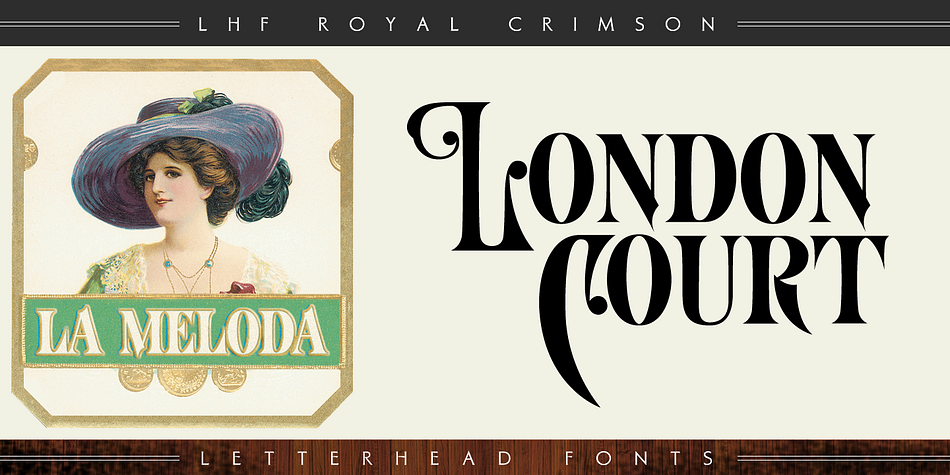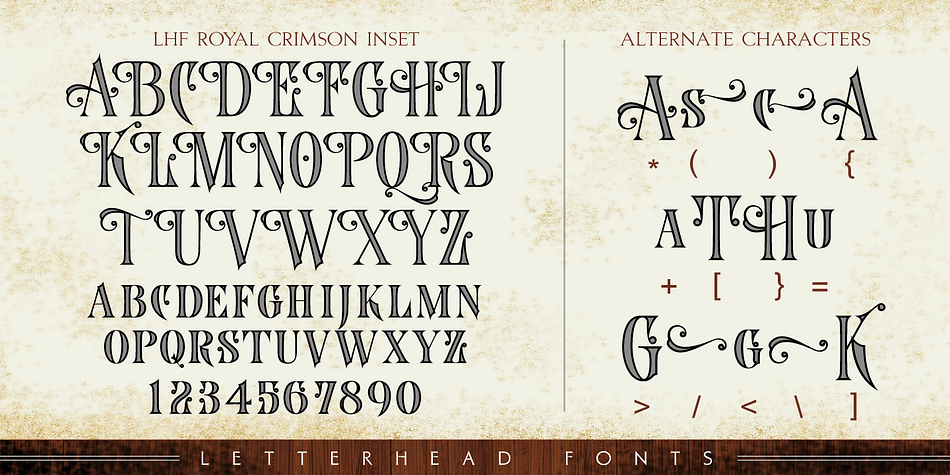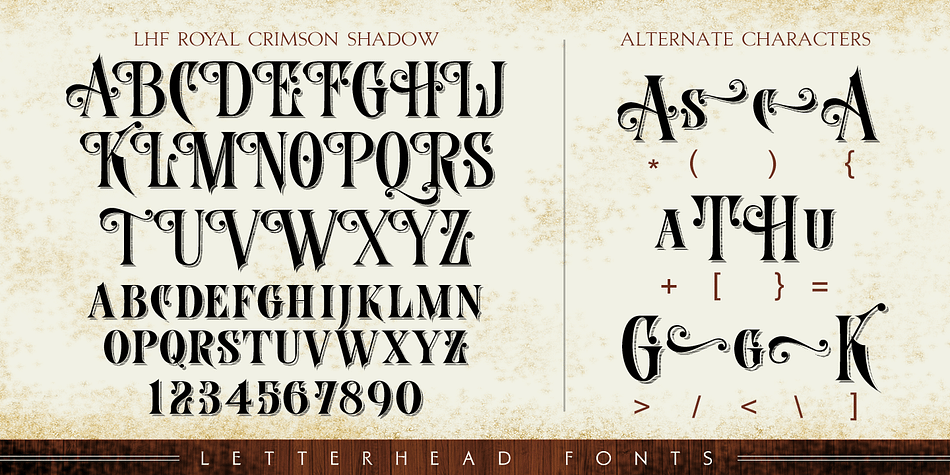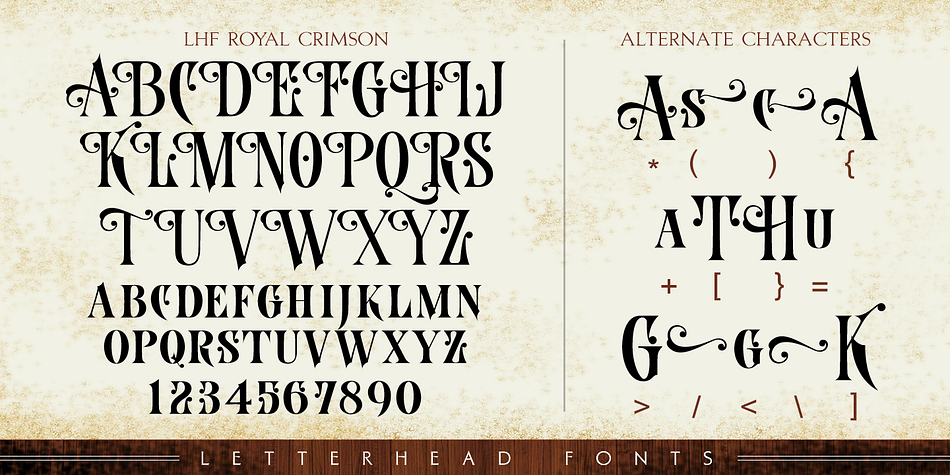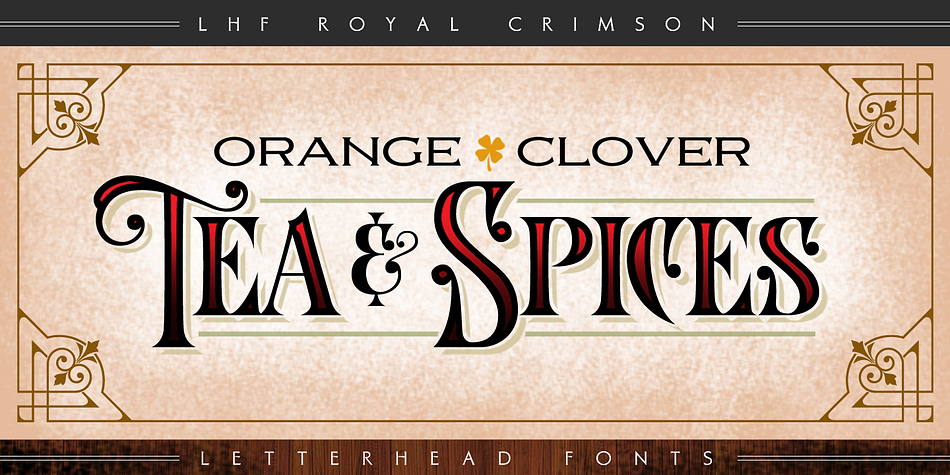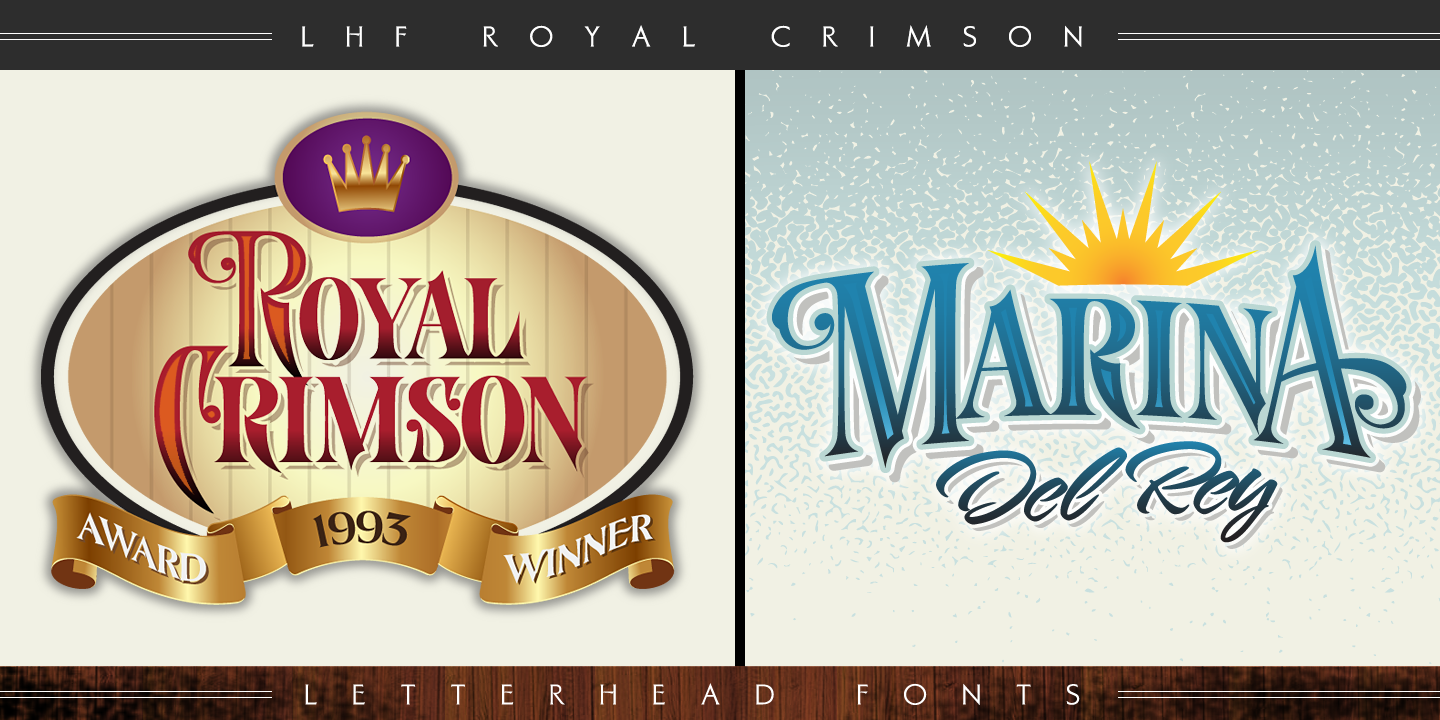
Designed by Denise Bayers, LHF Royal Crimson is a western and art nouveau font family. This typeface has six styles and was published by Letterhead Fonts.
Royal Crimson is classically beautiful with its highly decorative uppercase and sharp serifs. Perfect for designs requiring an old world appearance. Set includes 6 fonts designed to be used together.